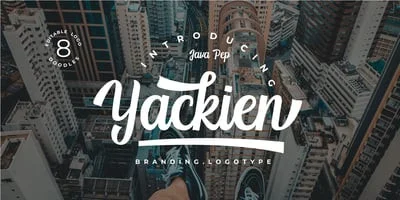
Yackien Font
Yackien Font presents designers with a distinctive typeface that embodies creative expression and artistic innovation with contemporary flair. However, for commercial use, you must purchase this font. You can download it for free for testing purposes only.
Yackien Font excels in creative design applications including modern art galleries, independent design studios, contemporary music venues, artistic lifestyle brands, creative agency portfolios, innovative tech startups, experimental fashion labels, progressive cultural events, artistic workshop materials, and forward-thinking marketing campaigns. This dynamic typeface brings creative authenticity to expression-focused design projects.
What makes Yackien Font truly exciting is its unique blend of artistic spontaneity with structured design principles that creates memorable visual impact without sacrificing professional readability. The font features distinctively crafted letterforms with creative character variations and innovative details that reflect artistic freedom and contemporary design thinking. Its creative personality and innovative spirit make it ideal for brands embracing artistic expression, creative innovation, and audiences who appreciate unique design solutions, artistic authenticity, and the bold confidence of creative professionals who push boundaries.
The Yackien Font family typically includes multiple weights with potential stylistic alternates and creative variations that enhance its artistic character. These innovative options provide designers with complete creative styling while maintaining the font's distinctive artistic elegance and contemporary presentation across various creative applications and artistic contexts.
Whether you're developing creative industry branding, designing artistic campaigns, or creating innovative marketing materials, Yackien Font delivers the creative authority and artistic sophistication that expression-focused projects require. Its exceptional uniqueness and innovative appeal make it invaluable for designers working with creative agencies, artistic organizations, and innovation-driven brands requiring typography that celebrates creative freedom, artistic excellence, and the transformative power of design innovation that inspires audiences to think differently and embrace creative possibilities.